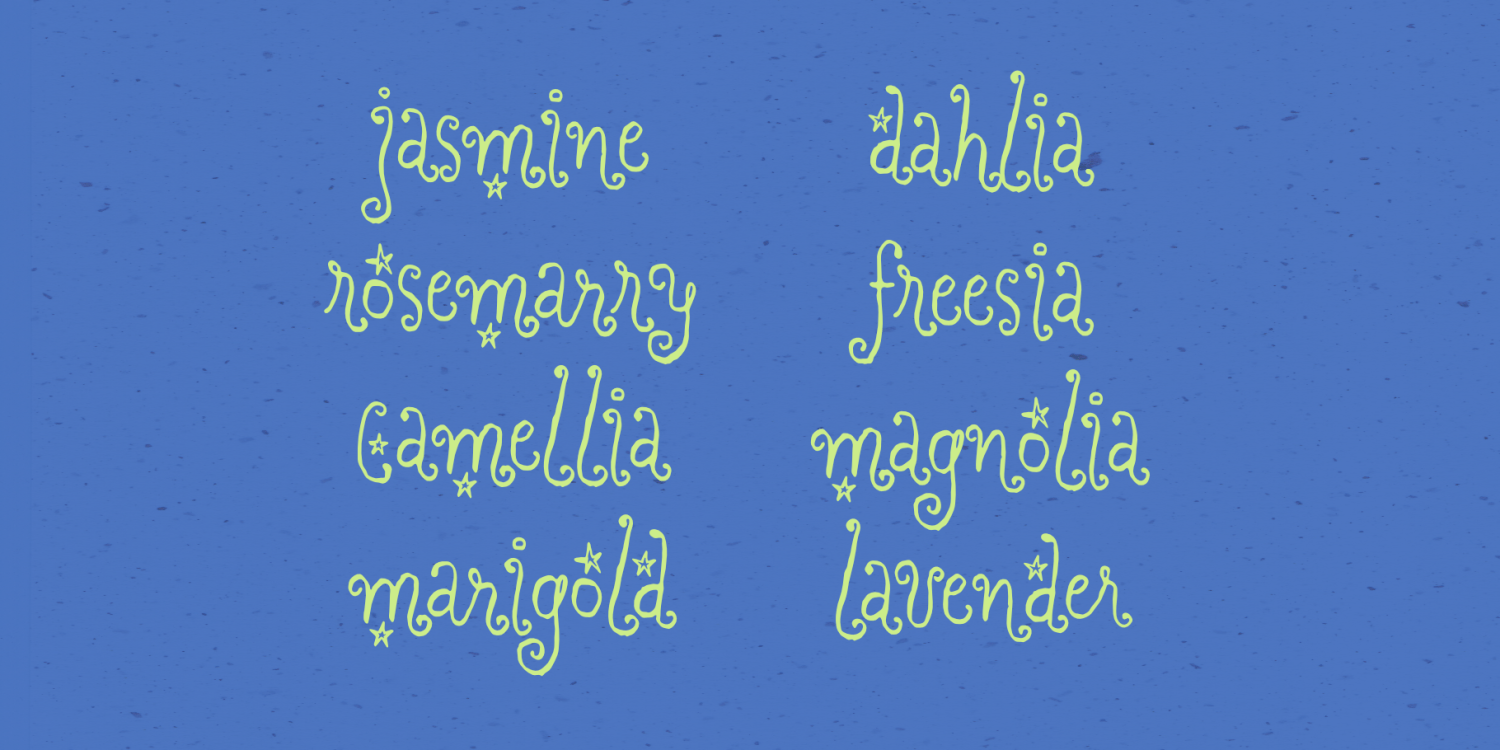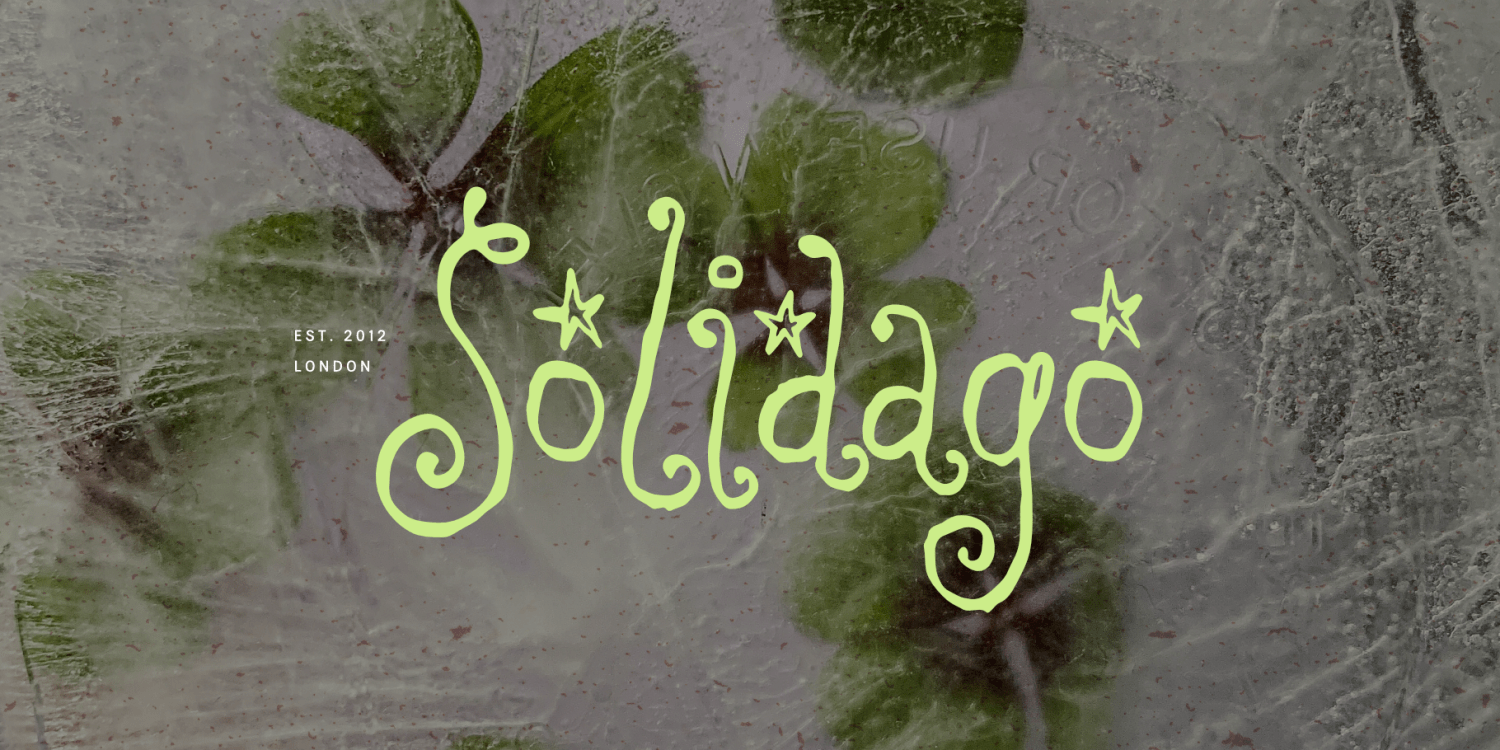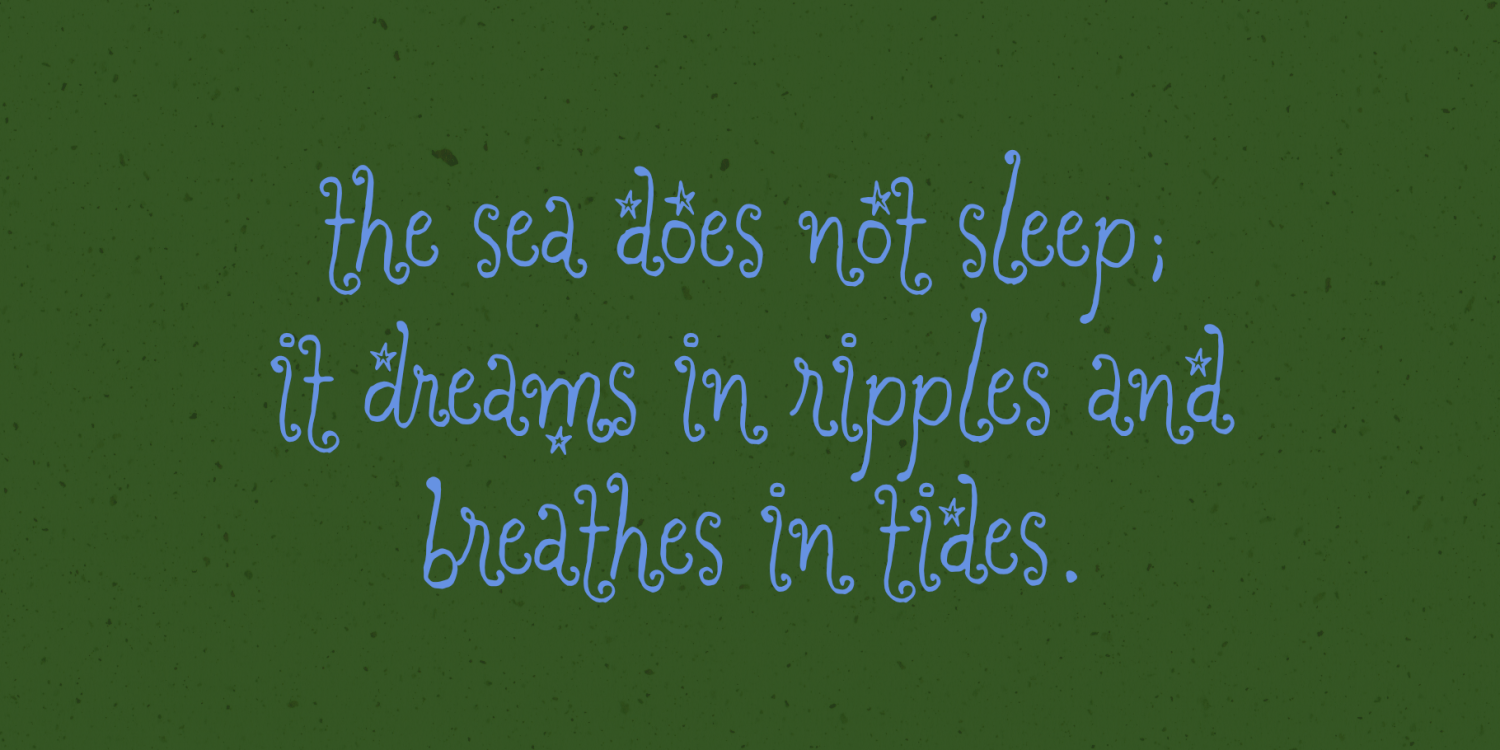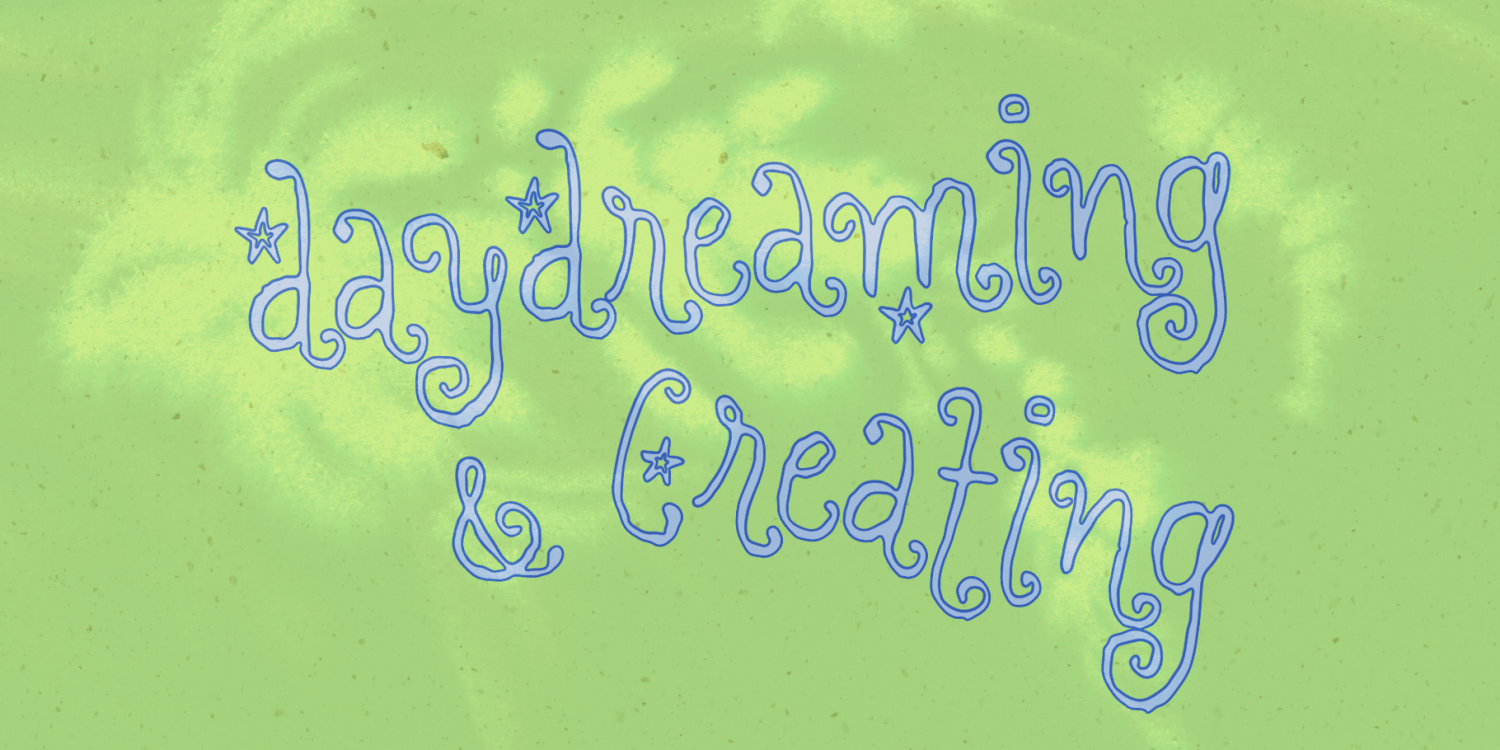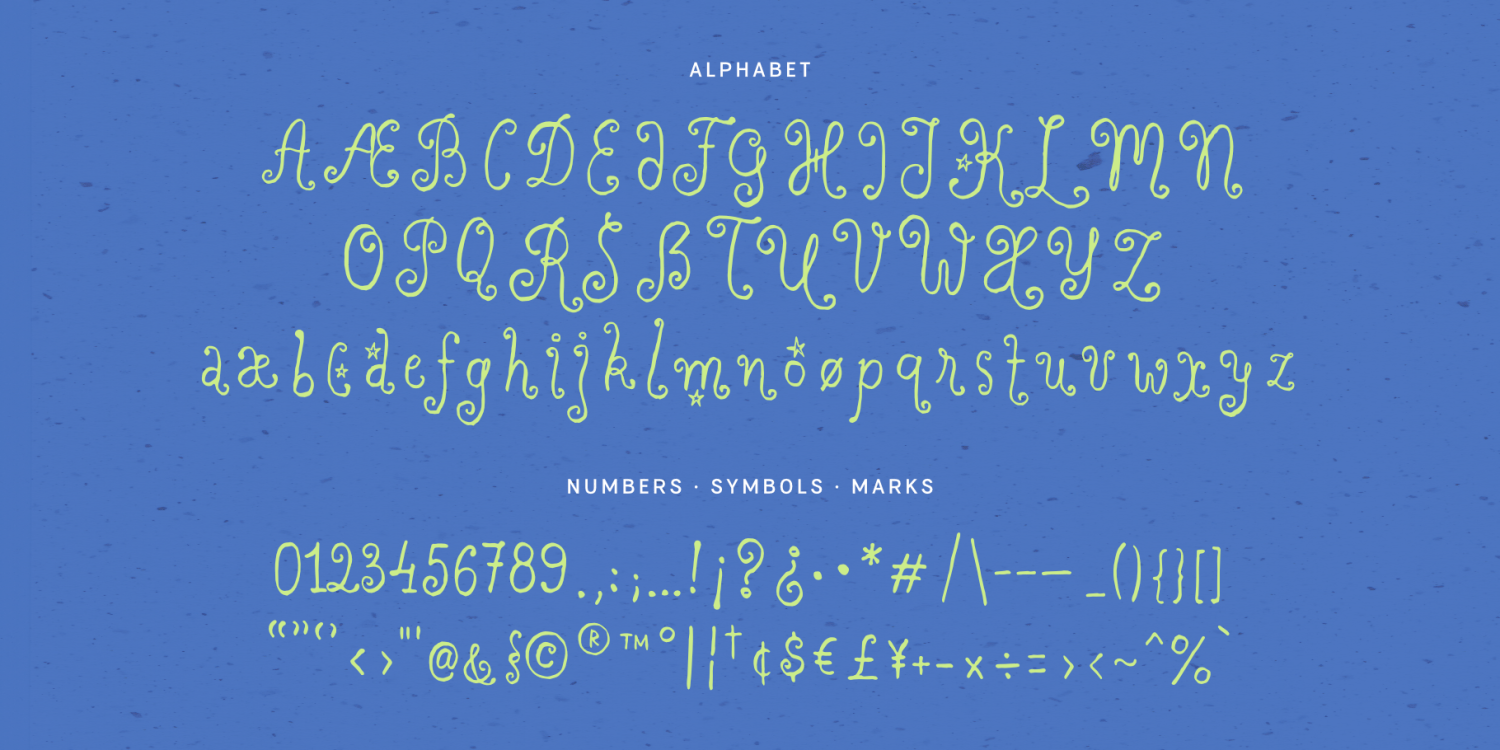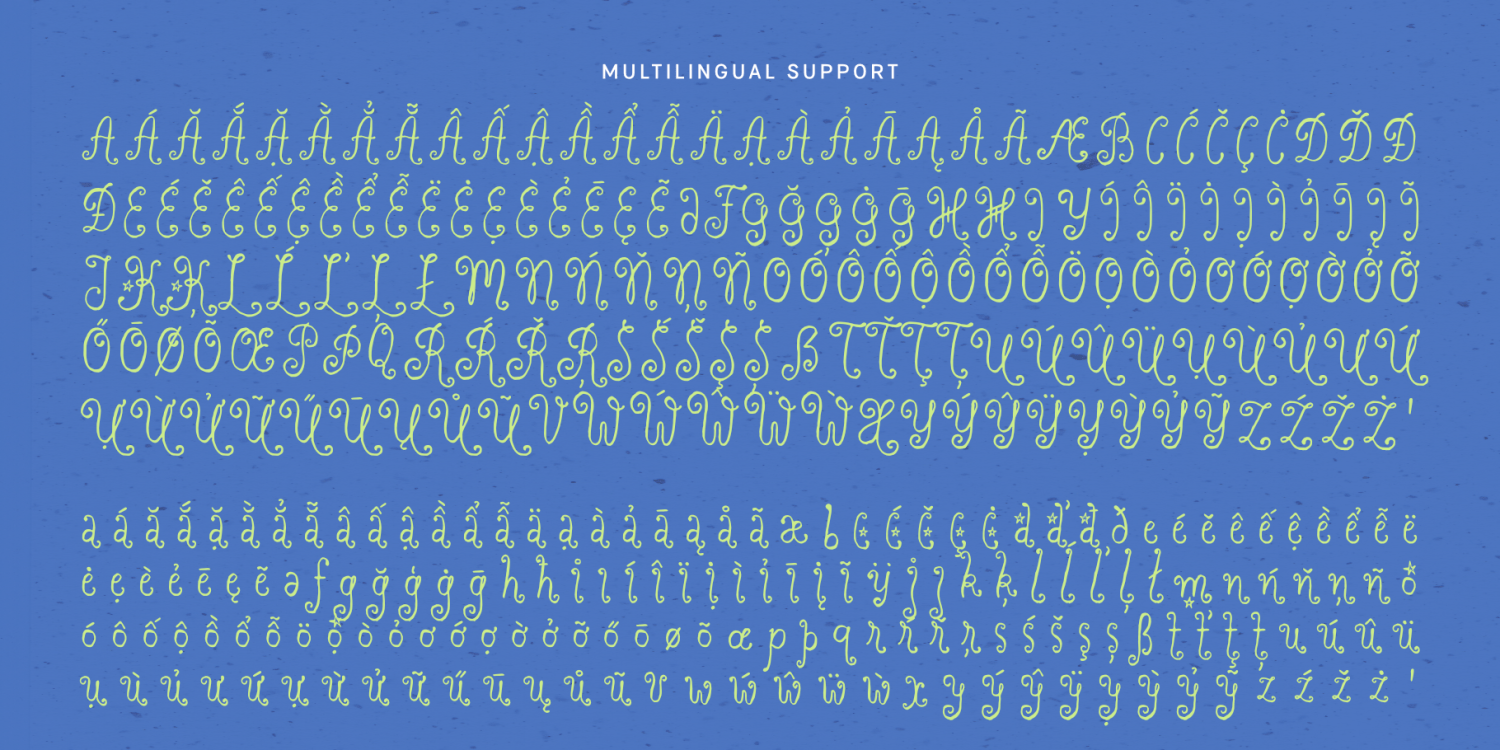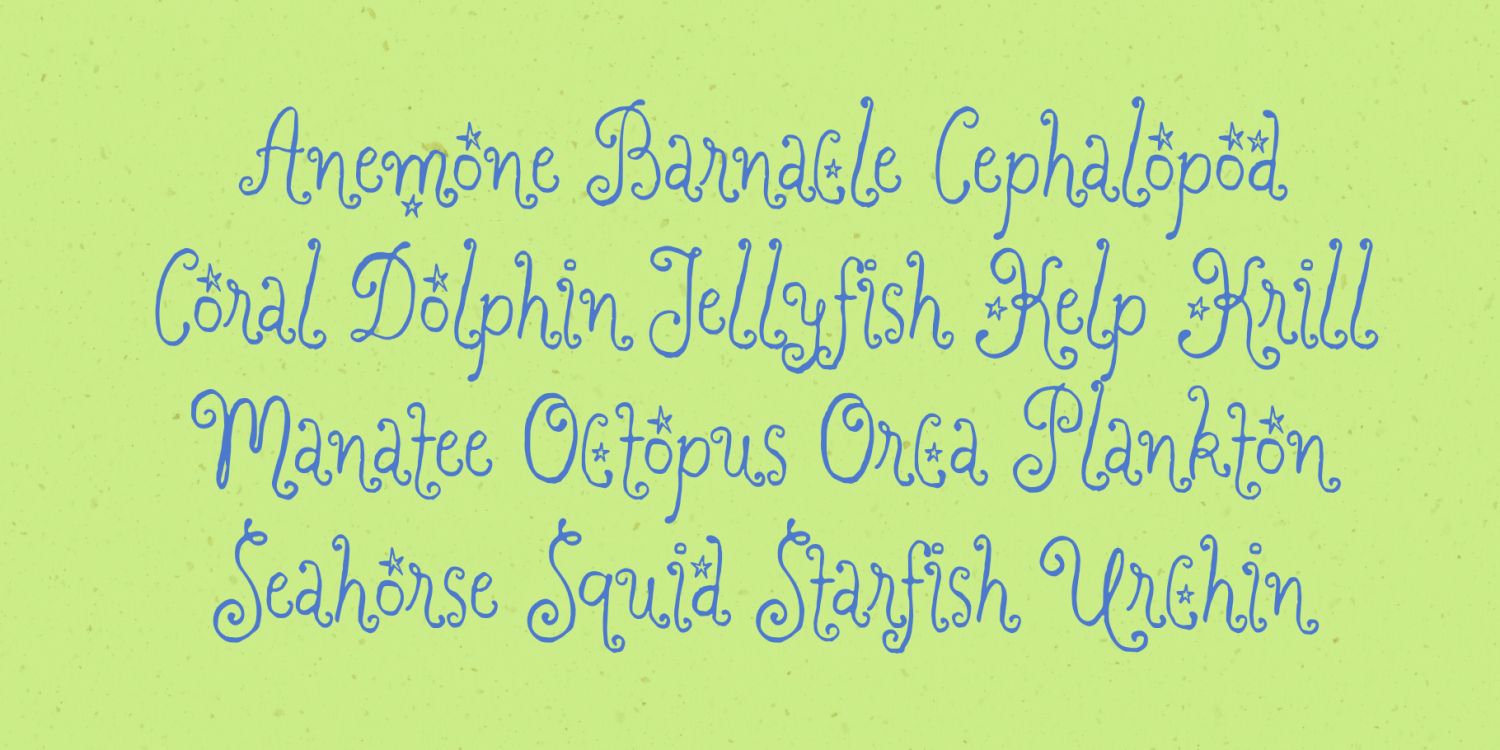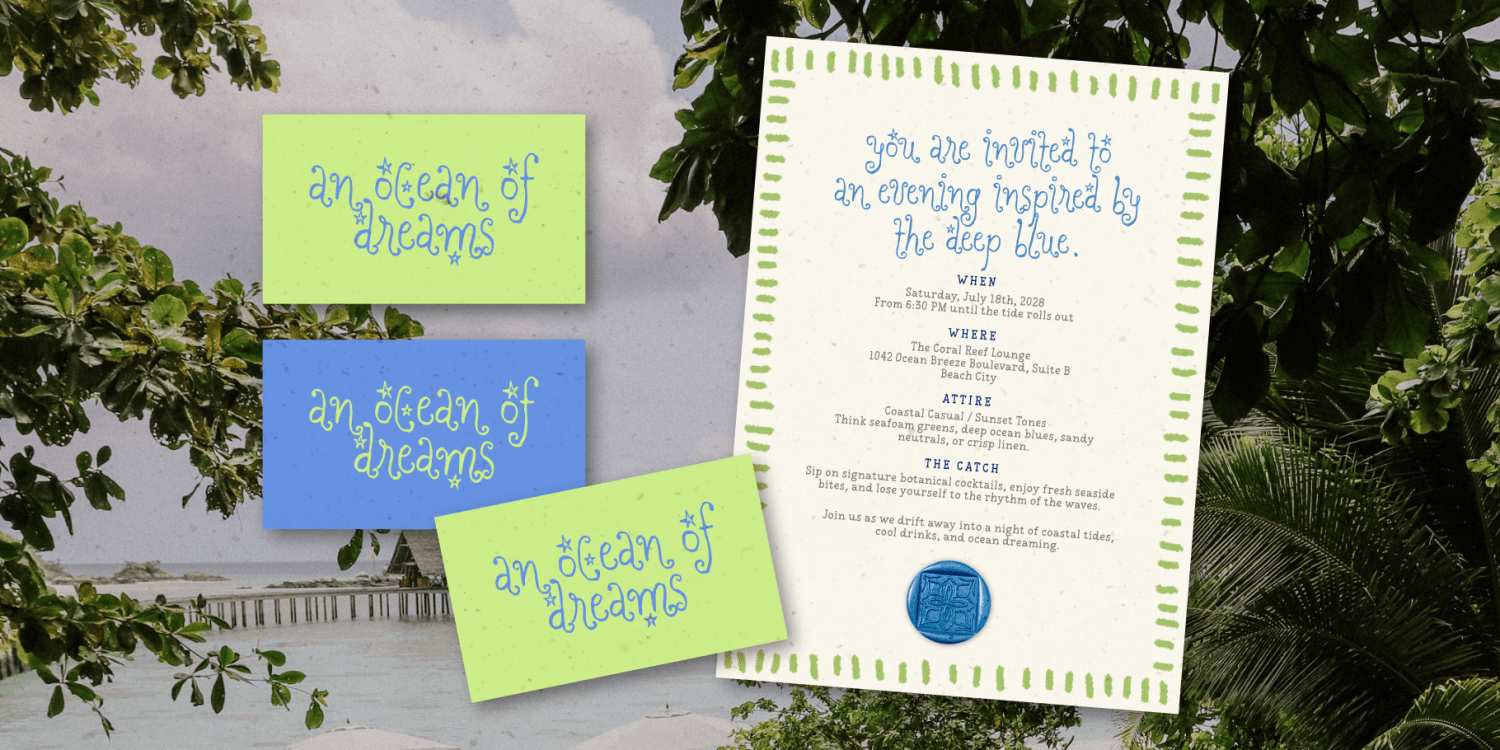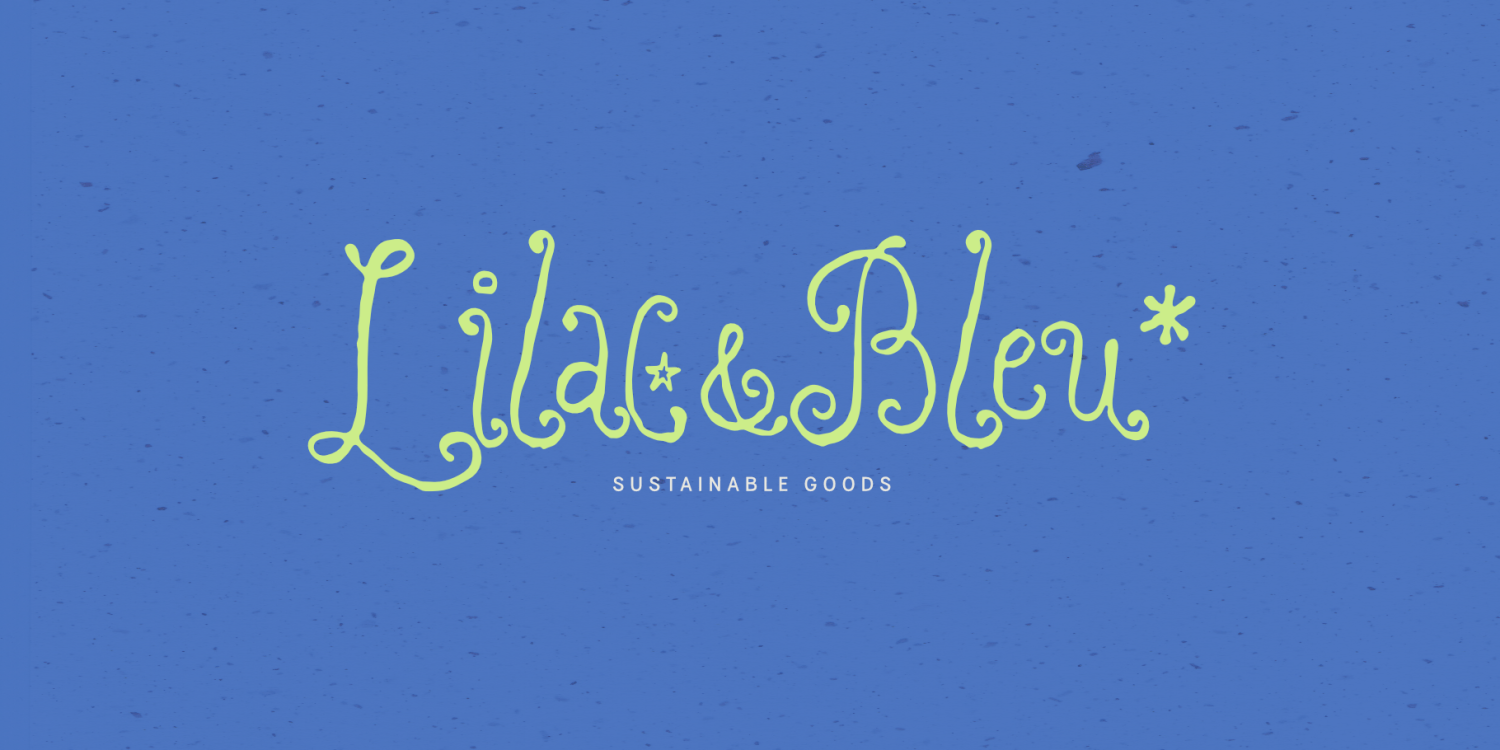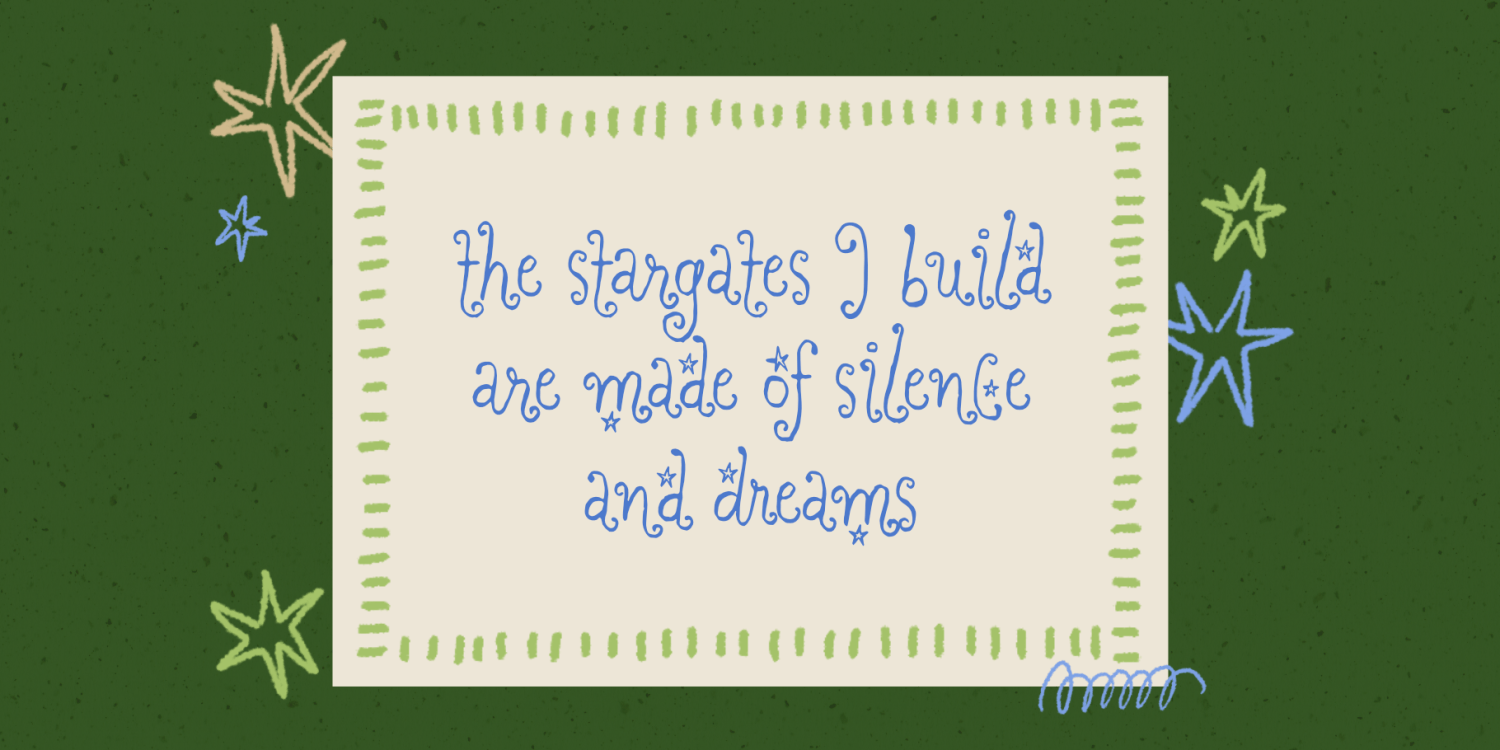
Dreaming Ocean
Say hi to Dreaming Ocean, a whimsical, hand-drawn typeface crafted for all the dreamers who still carry their inner child. Its curly, organic curves and slightly rough texture capture a playful innocence, giving your words a magical, storytelling quality. It doesn't take itself too seriously, it's loose and full of joy!
This typeface is perfect for branding projects, packaging design, eye-catching social media graphics, and creative editorial layouts that need a dreamy, human touch.
Features:
• Includes 2 styles: Regular & Bold
• Comprehensive uppercase, lowercase, numerals, punctuation marks and symbols
• Includes OpenType features: Discretionary Ligatures
• Multilingual support
Script: Latin
Supported Languages: English, Western European, Central European, South Eastern European, Vietnamese, South American